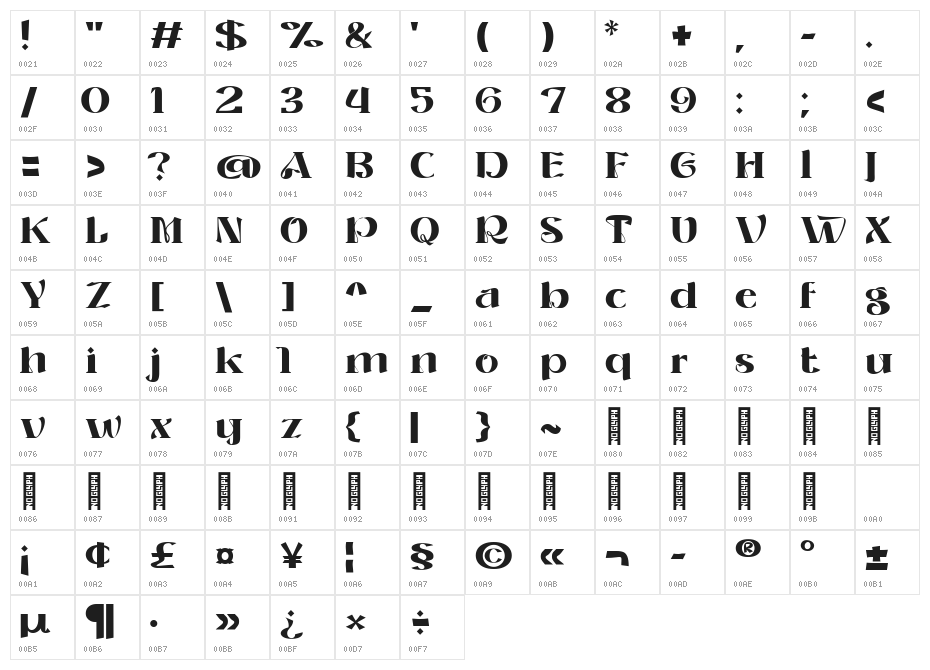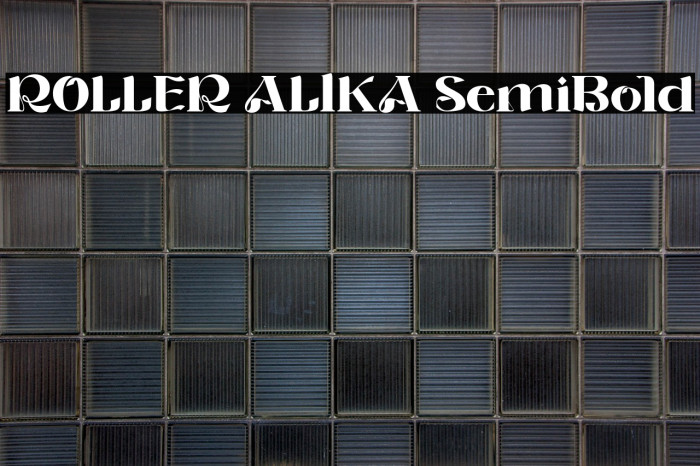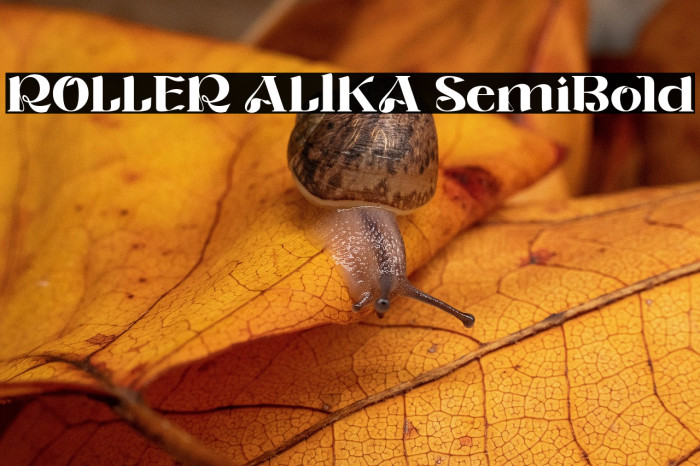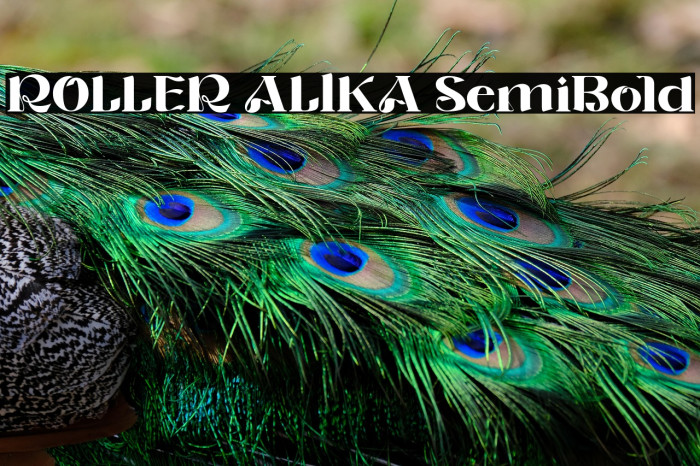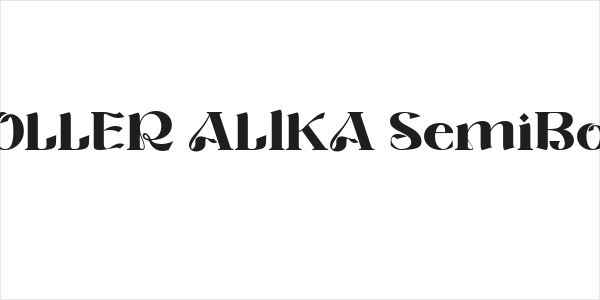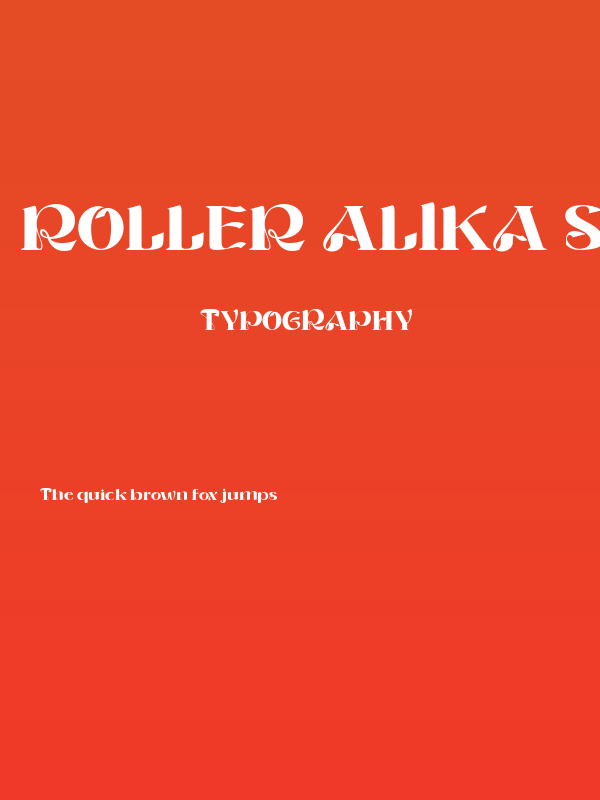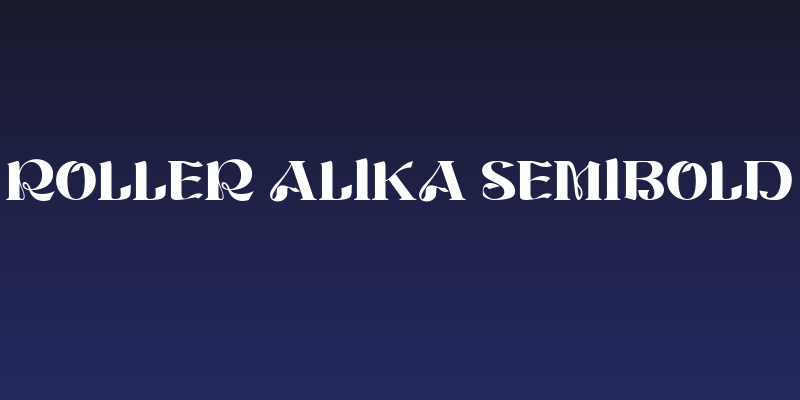
ROLLER ALIKA SemiBold Font
ROLLER ALIKA SemiBold Description
This font features a bold and dynamic style with a strong presence. The uppercase letters exhibit a unique blend of sharp angles and smooth curves, creating a striking visual impact. The lowercase letters maintain this boldness while offering a slightly softer appearance. Numbers are equally bold, ensuring consistency across all characters. Special characters are designed with the same attention to detail, making them stand out. The font's overall design is both modern and decorative, making it suitable for projects that require a strong visual statement.